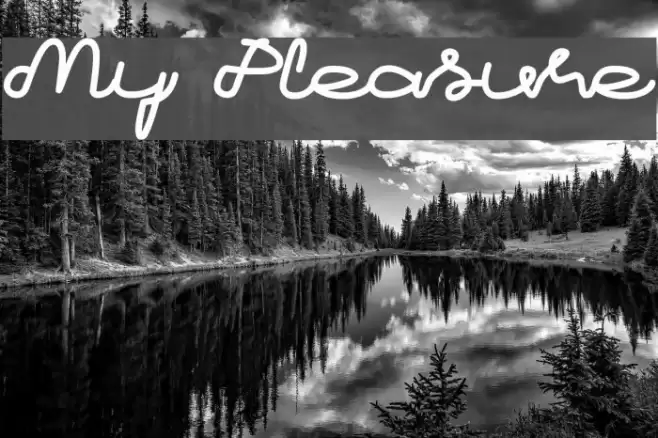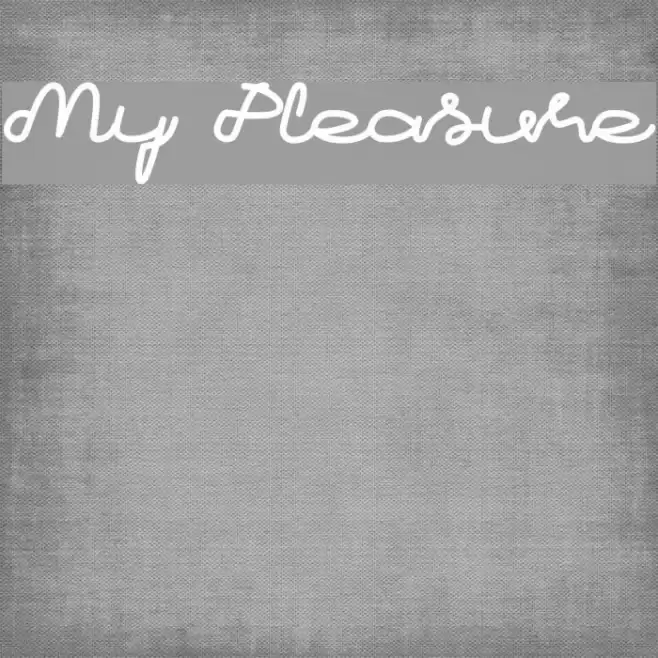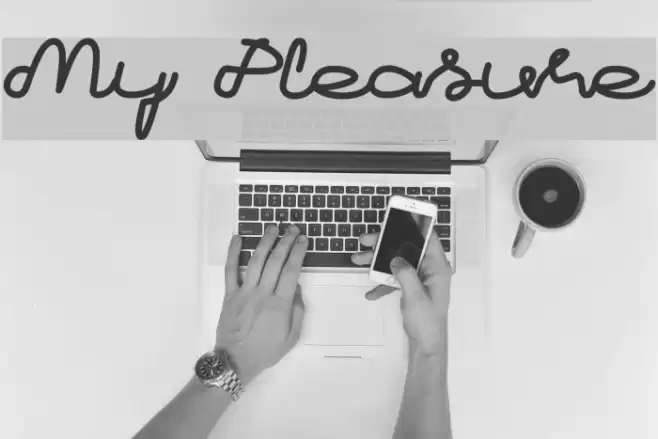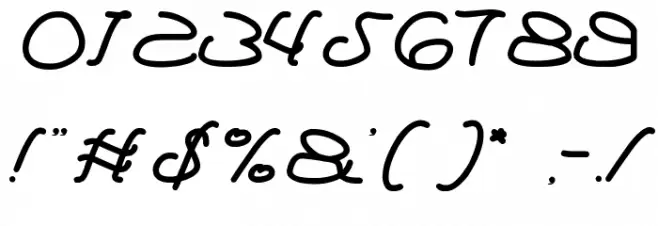
My Pleasure Font
My Pleasure Description
This font features a playful and casual script style with a handwritten appearance. The letters are connected in a flowing manner, giving it a sense of movement and fluidity. The strokes are consistent in thickness, providing a balanced look. The uppercase letters maintain a uniform height, while the lowercase letters have a slight slant, enhancing the informal feel. Numbers and special characters are designed to match the overall style, ensuring cohesion across all elements. This font is ideal for projects that require a personal touch or a relaxed vibe.
A playful, handwritten script font with fluid, connected letters from Uncategorized fonts.
- Proposed Projects: Greeting cards, invitations, personal branding, social media graphics, and casual event posters.
- Overall Style: Casual, Playful
- Use Case: Headlines, Logos, Informal Text